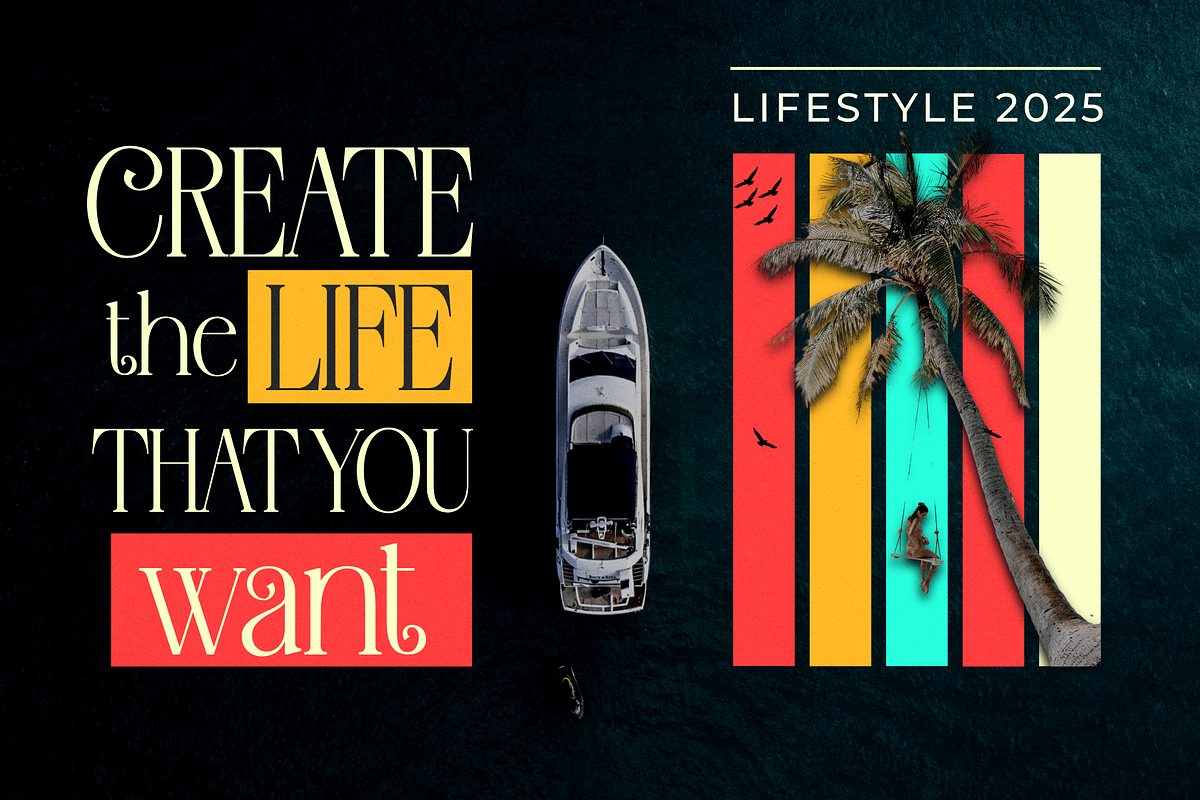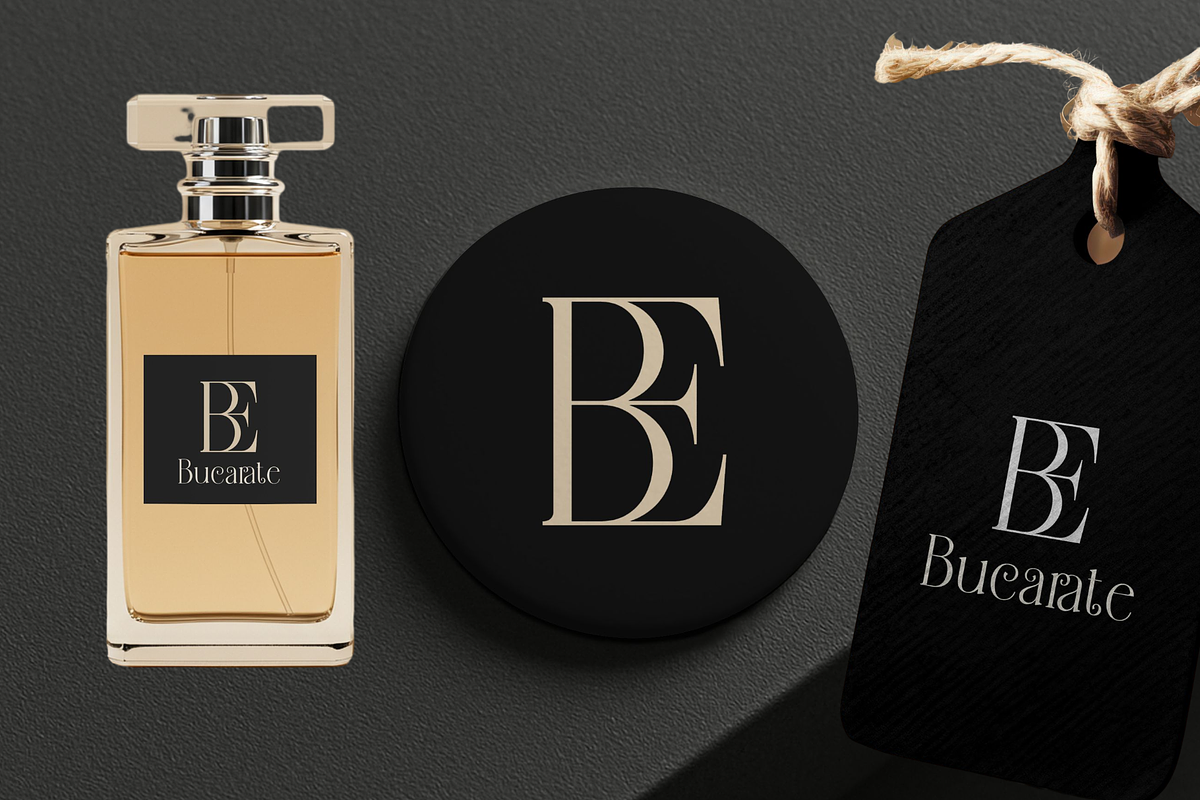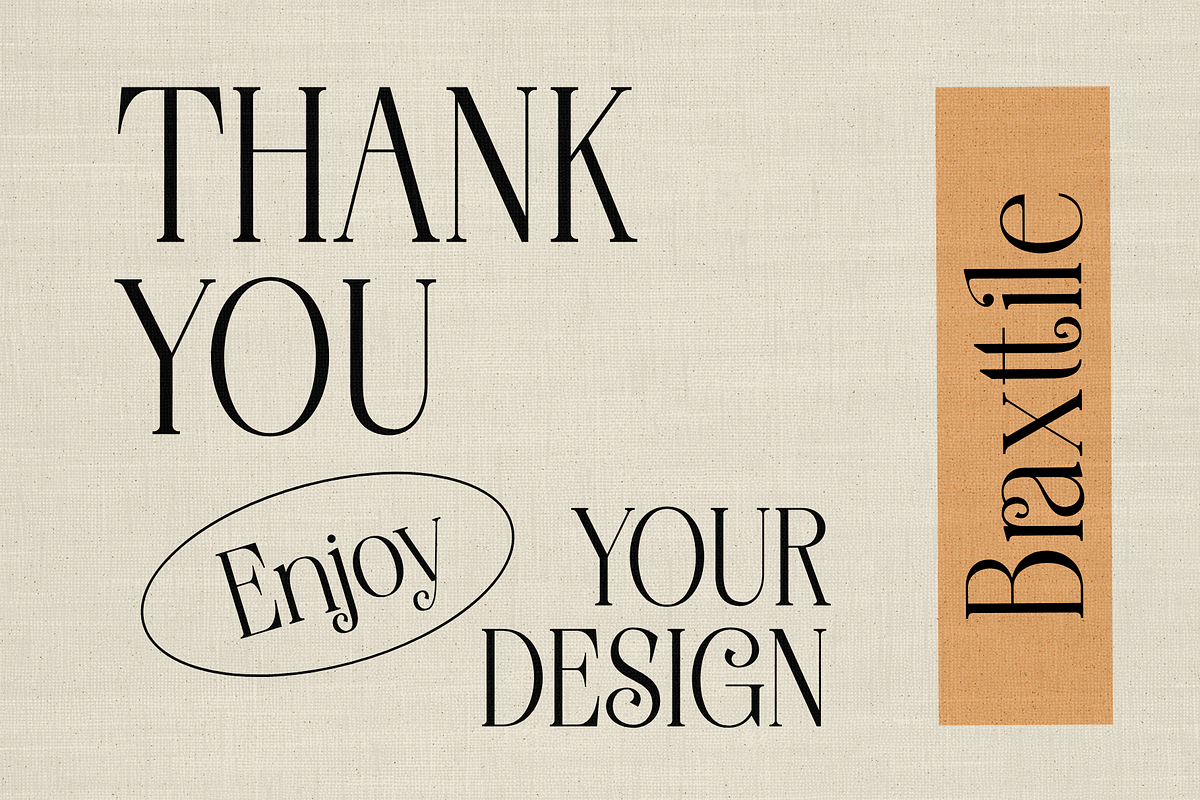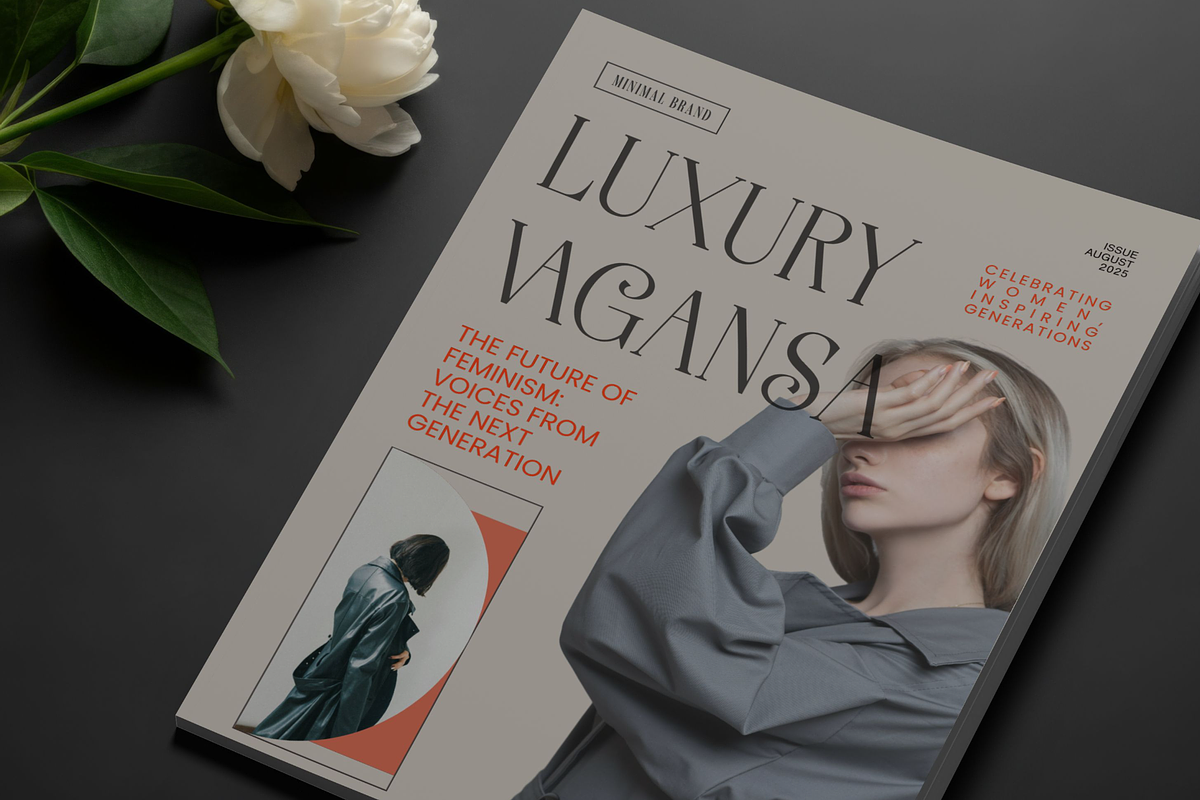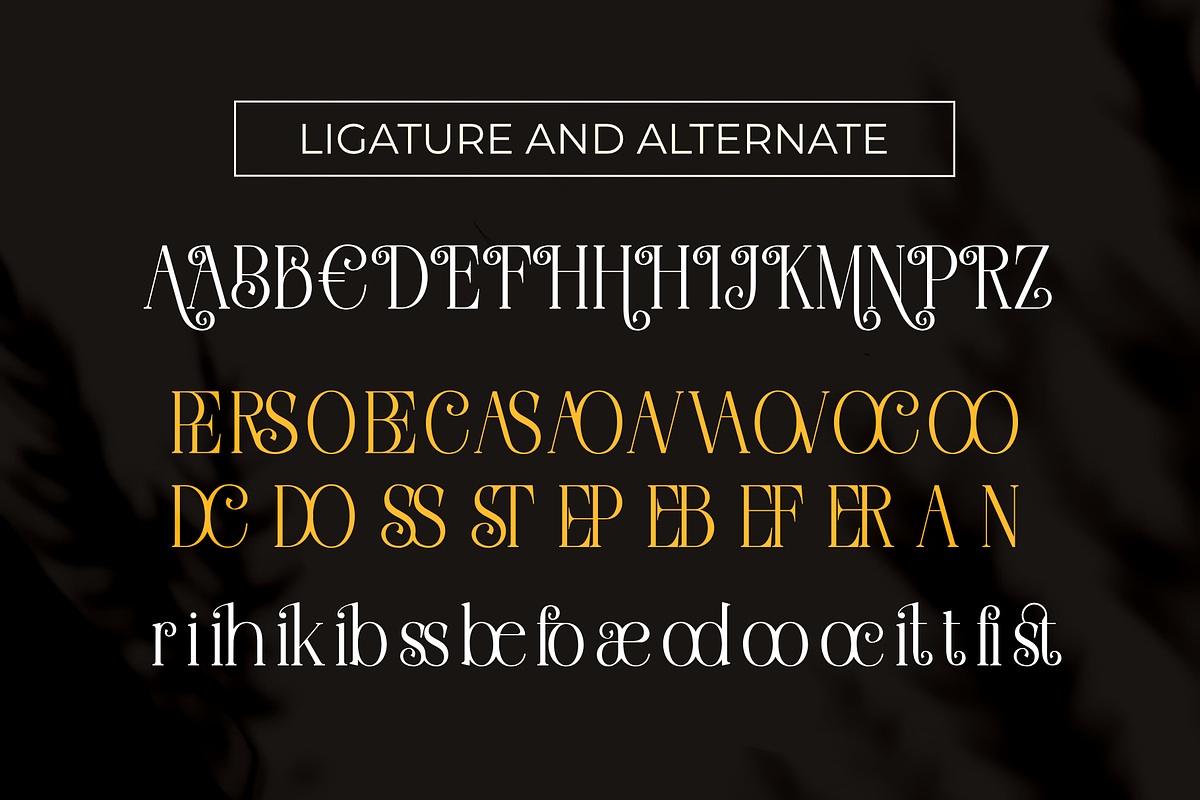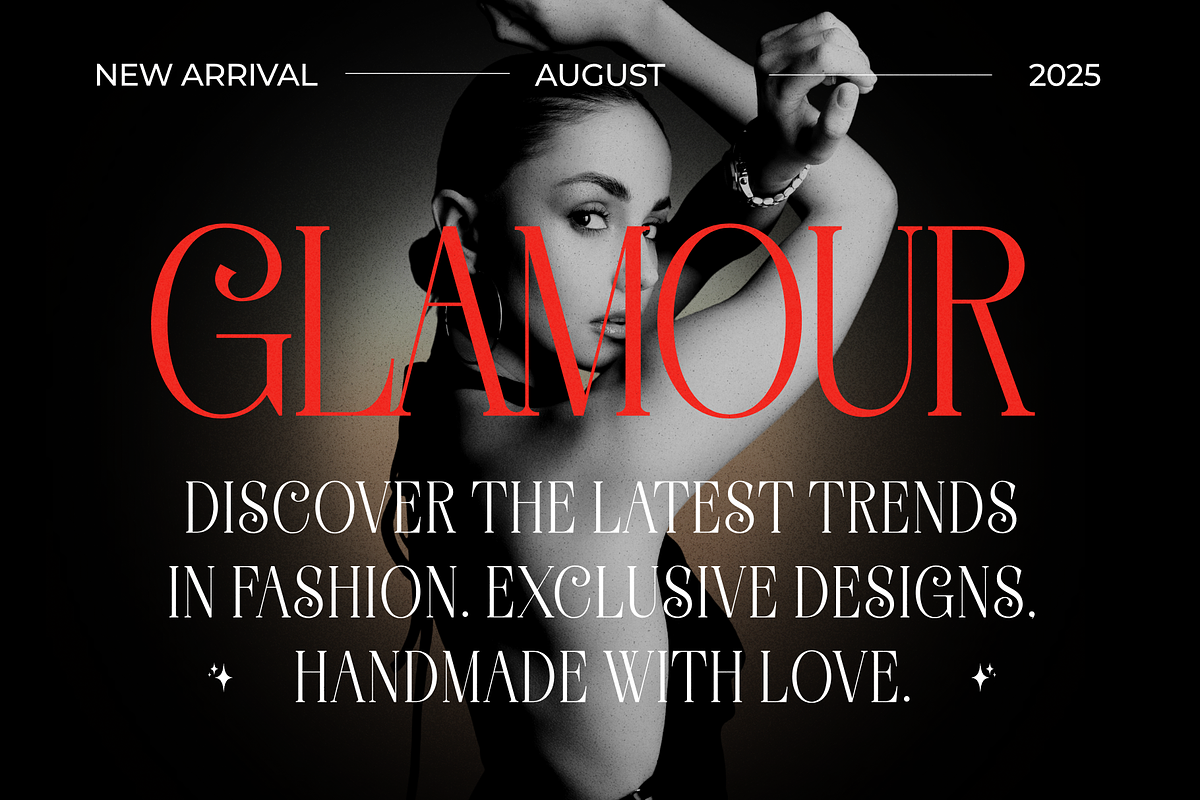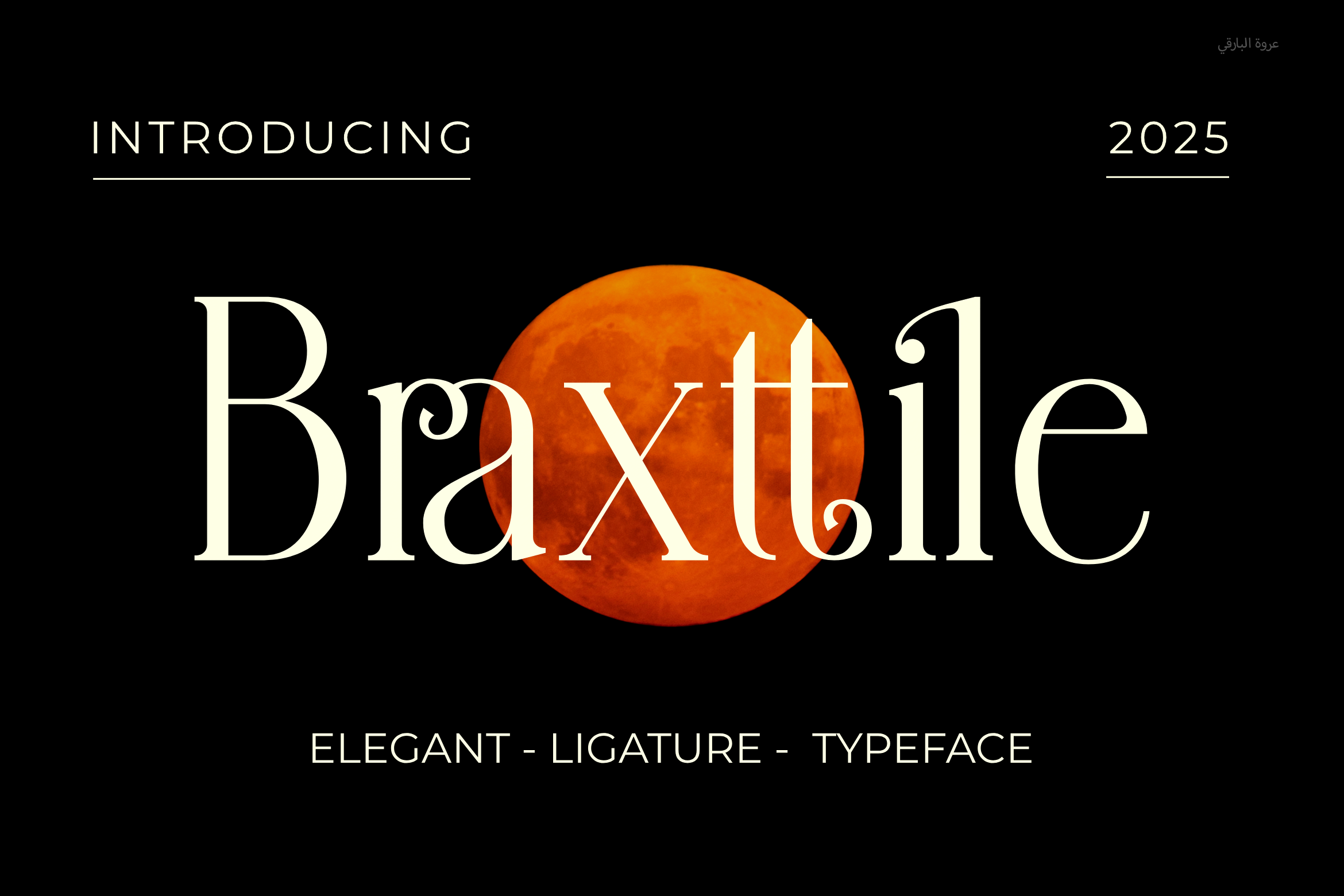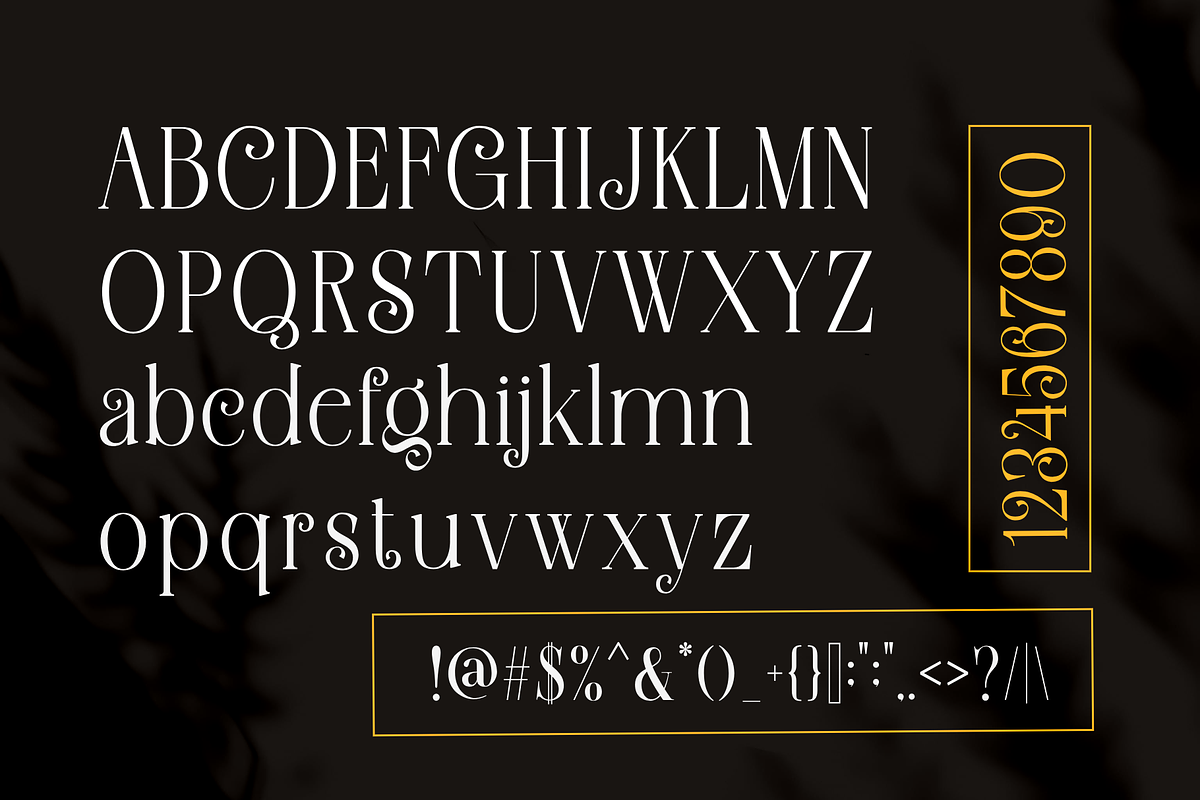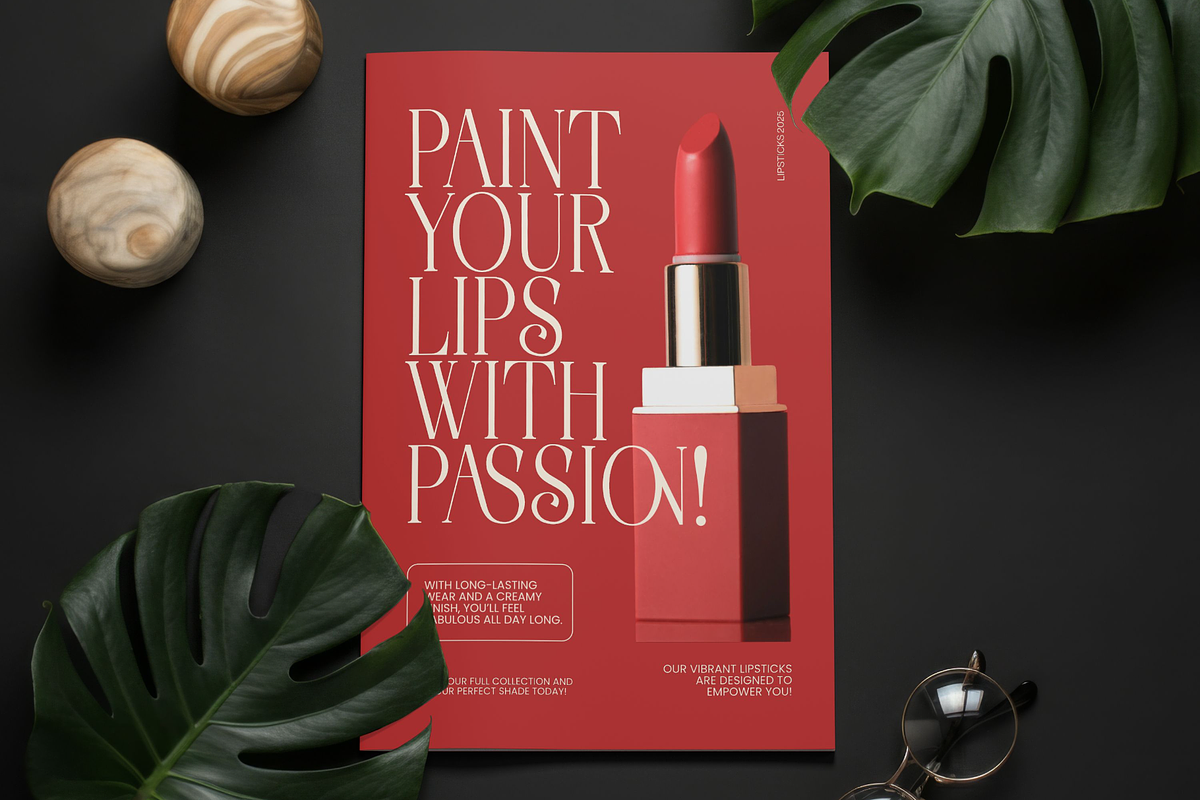
Braxttile Elegant Serif Font
Braxttile Elegant Serif Font – Modern and Timeless Elegance
Braxttile Elegant Serif Font is the perfect blend of modern sophistication and classic elegance. It features proportional letterforms and functional ligatures, making it the ideal choice for a wide range of design projects. Whether you’re creating logos, branding, websites, or advertisements, this font adds a professional and polished touch to any design.
Key Features of Braxttile Font
Modern Elegance Braxttile offers the best of both worlds: a contemporary look with a nod to classic design. Its sharp serifs and smooth curves bring sophistication and elegance, making it a top choice for luxury brands and corporate identity projects. Additionally, its timeless appeal works equally well for modern and traditional designs.
Proportional Letterforms for Maximum Legibility Thanks to its proportional letterforms, Braxttile is incredibly easy to read. This makes it perfect for headlines, subheadings, and body text. As a result, the font maintains clarity even in complex layouts, making it suitable for both digital and print projects.
Smooth Ligatures for Seamless Flow Braxttile also includes functional ligatures that connect letters elegantly. This feature enhances the overall design and gives your typography a more refined and professional look. Whether you’re designing a logo, advertisement, or branding material, these ligatures make your text stand out.
Versatility Across Multiple Mediums One of the best features of Braxttile is its versatility. It works flawlessly in both digital and print environments. Whether you’re creating websites, magazines, social media graphics, or product packaging, Braxttile adapts effortlessly to all formats. Therefore, it’s the perfect font for designers who need flexibility in their projects.
Why You Should Choose Braxttile is more than just a font—it’s an asset to your design toolkit. Not only does it offer elegance and legibility, but it also provides versatility and adaptability. Whether you’re working on a luxury brand, an online store, or a corporate magazine, Braxttile is the ideal choice. Furthermore, its professional appearance guarantees that your designs will always make a lasting impression.
In conclusion, Braxttile is a high-quality serif font that blends modern design with classic appeal. Its proportional letterforms, smooth ligatures, and timeless style ensure that it will be a valuable asset to your design projects for years to come.